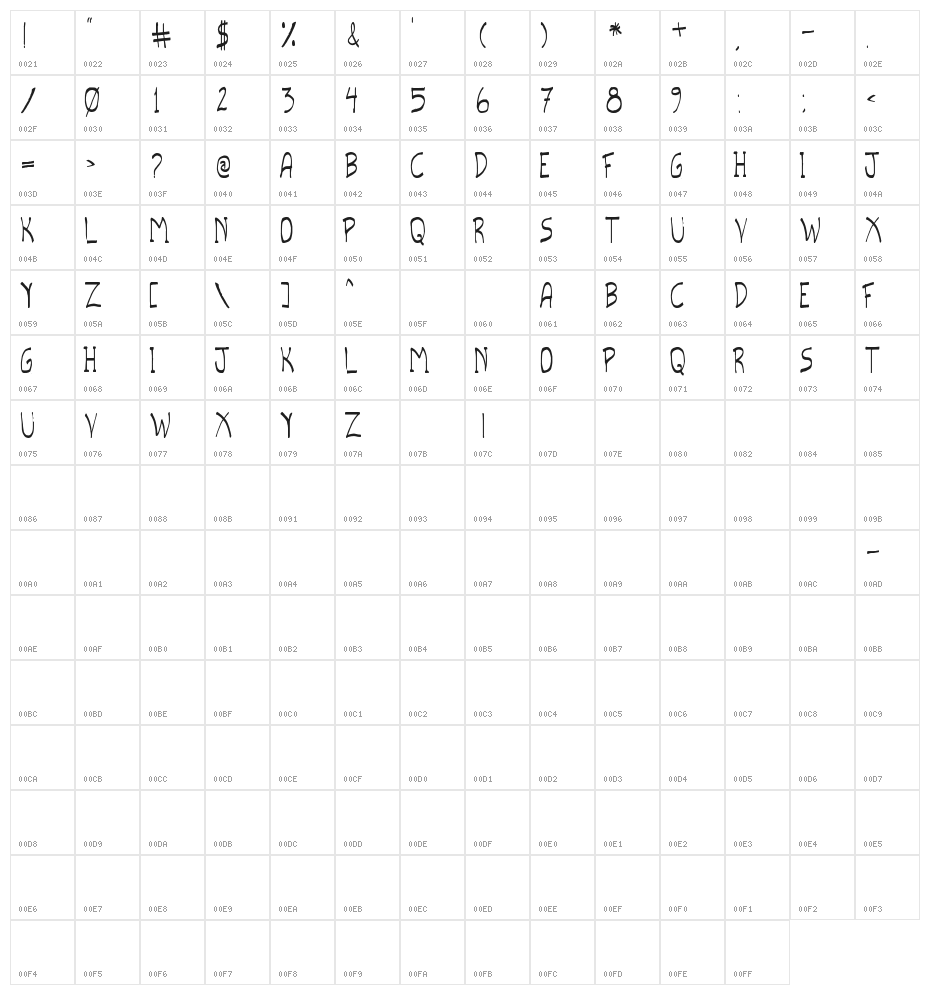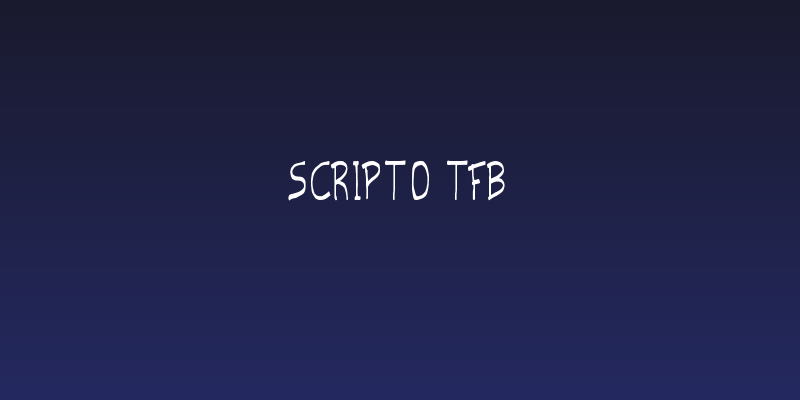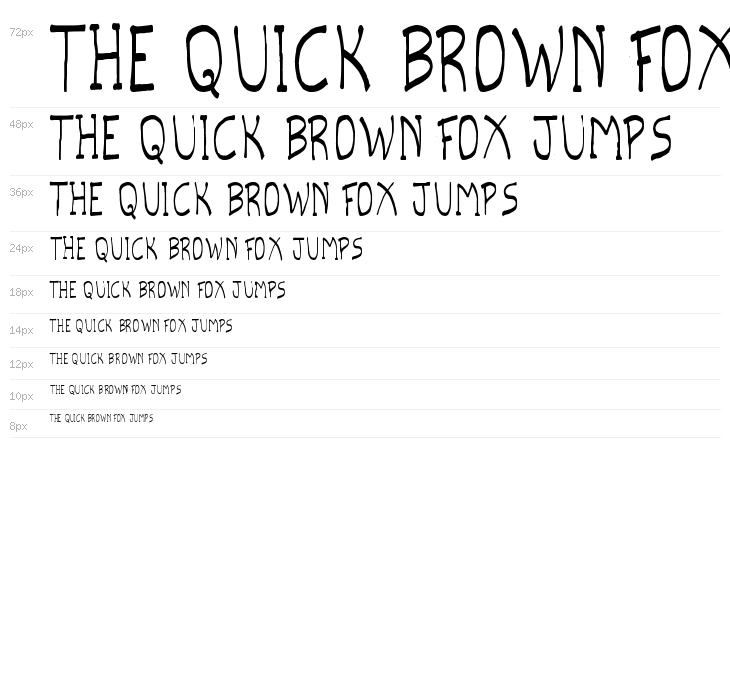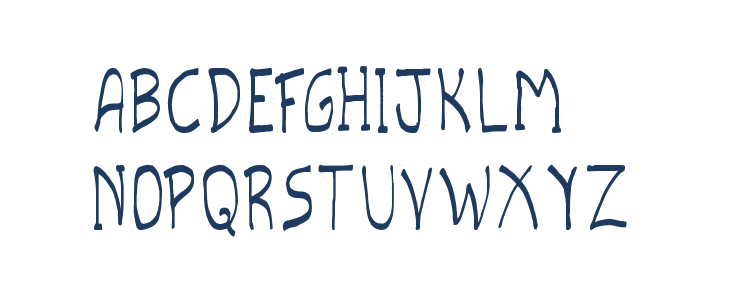
scripto tfb Font
scripto tfb Description
This font features a playful and informal handwritten style, characterized by its uneven strokes and slightly irregular shapes. The letters have a casual, organic feel, with varying line thickness that adds a dynamic and lively touch. The uppercase and lowercase letters maintain a consistent style, while the numerals and special characters complement the overall aesthetic. This font's unique personality makes it suitable for projects that require a personal or whimsical touch.
| Overall Style | Casual, Playful |
| Use Case | Headlines, Informal text, Creative projects |
| Proposed Projects | Ideal for greeting cards, children's books, casual invitations, and creative branding projects. |